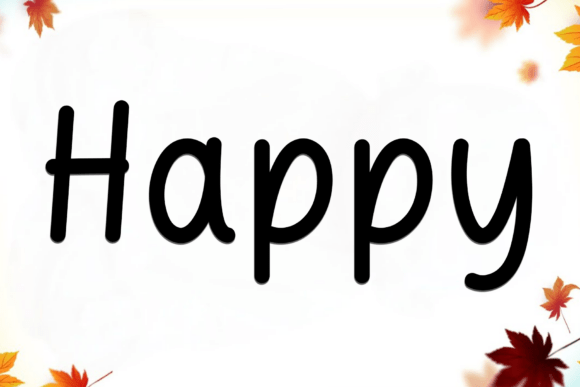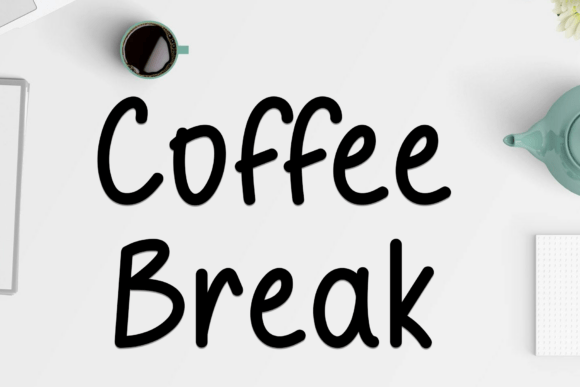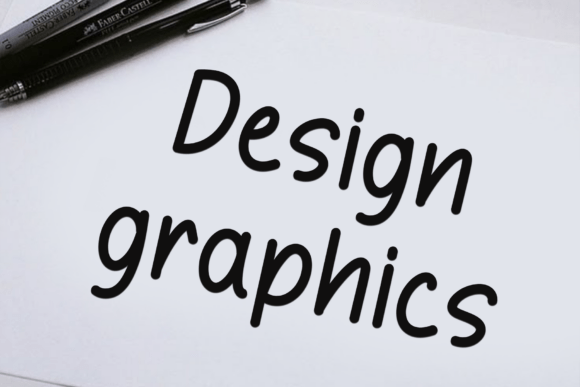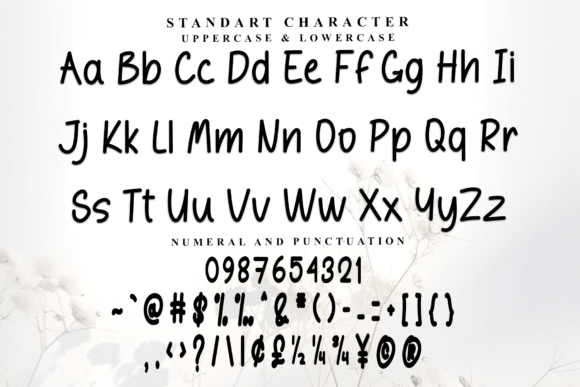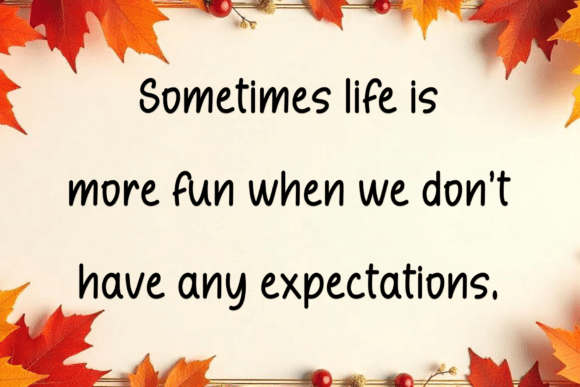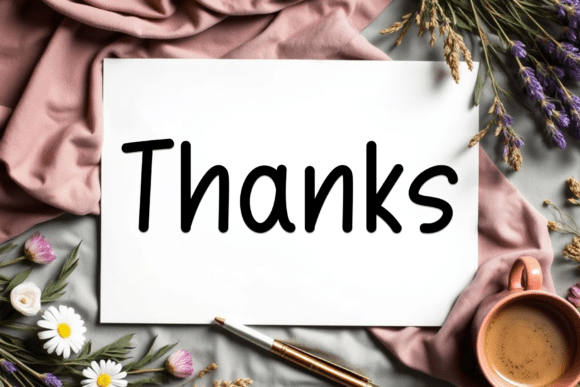
Introducing Autumn Holiday Font: Elevate Your Designs with a Touch of Elegance
As the seasons change and autumn leaves start to fall, designers and crafters are on the lookout for fresh inspiration to infuse their projects with a warm, cozy feel. This is where the Autumn Holiday Font comes into play – a stunning, handcrafted typeface that embodies the essence of the season with its soft, unique touch. In this article, we’ll dive into the features, benefits, and uses of the Autumn Holiday Font, exploring how it can elevate your designs and creative projects.
A Beautifully Designed Font with a Unique Touch
The Autumn Holiday Font is meticulously designed to stand out from the crowd. Its distinctive strokes and elegant curves give it a special character that is both meaningful and versatile. This font is not just a simple collection of letters; it’s a carefully crafted tool that can add a touch of sophistication and charm to any design project. Whether you’re working on a logo, a greeting card, or a craft project, the Autumn Holiday Font is sure to make your creations shine.
One of the key advantages of the Autumn Holiday Font is its versatility. With a wide range of characters, you can experiment with different styles and combinations to create unique and captivating designs. The font’s natural and soft appearance makes it perfect for a variety of applications, from digital designs to print materials. Whether you’re a professional designer or a DIY crafter, this font offers endless possibilities for creative expression.
Ideal for Various Products and Projects
The natural style of the Autumn Holiday Font makes it an excellent choice for a wide range of products and projects. Here are some ideas to get you started:
- Design Projects: Use the Autumn Holiday Font to create eye-catching logos, brochures, posters, and social media graphics that capture the essence of the season.
- Crafts: Add a personal touch to your handmade crafts, such as greeting cards, invitations, and scrapbooking projects.
- Digital Products: Incorporate the font into your digital products, like printable art, planners, and journals.
- Seasonal Decor: Use the font to create beautiful seasonal decor, such as fall-themed banners, garlands, and signs.
Why Choose Autumn Holiday Font?
- Unique Style: The font’s distinctive strokes and elegant curves set it apart from more generic fonts.
- High Versatility: Use the font across various projects and applications, from digital designs to print materials.
- Seasonal Charm: The font’s autumn-inspired design adds a warm, cozy feel to your projects, perfect for seasonal and holiday-themed designs.